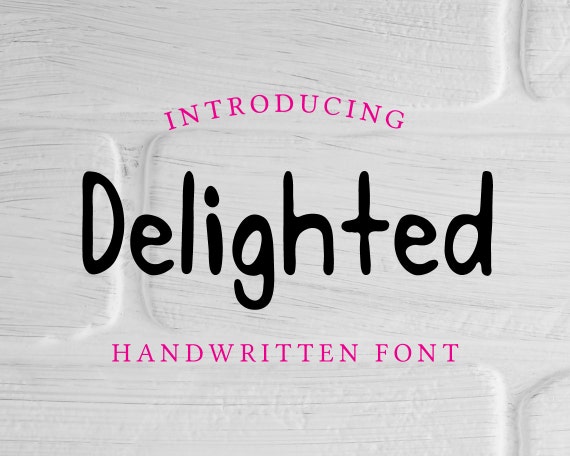
Introducing Delighted - a new bold handwritten display font
We all need that one font that is not too serious, yet is sophisticated enough to relate to our modern audience. Look no further! Delighted is the perfect font that is a perfect blend between relaxed and precise text.
Ideal for cafes, invitations, advertisement, logo design, and much more. The possibilities are endless as you will find this font the perfect option for any occasion or project.
Delighted was initially created by handwritten ink and was then finalized into vector format for font usage. It is a great natural font that is not too perfect or imperfect.